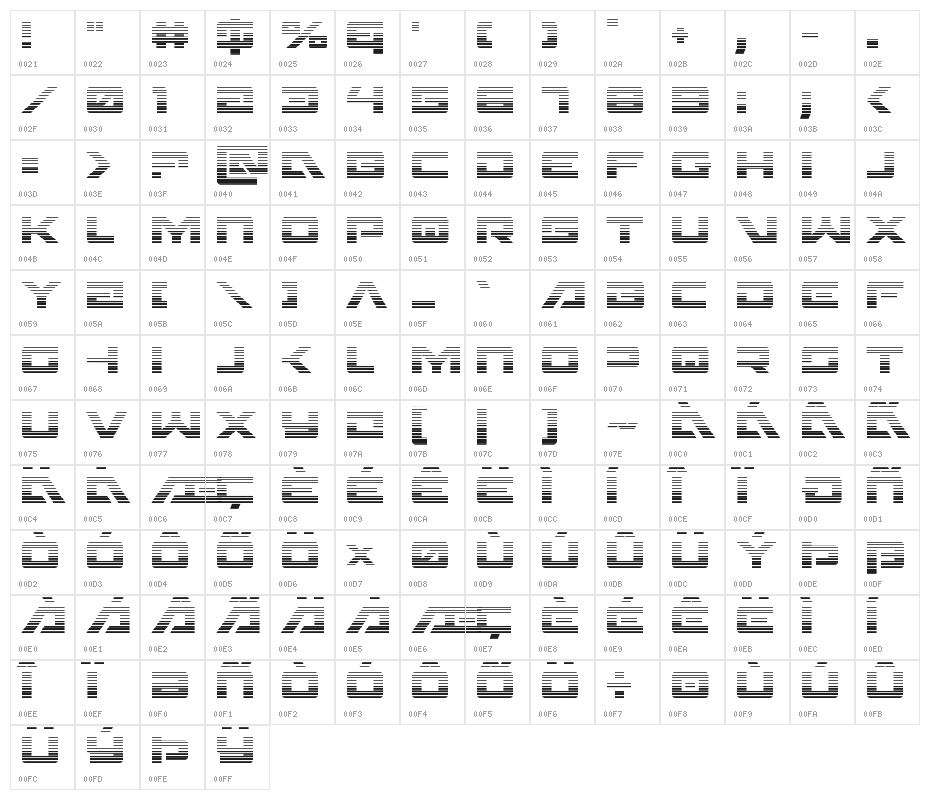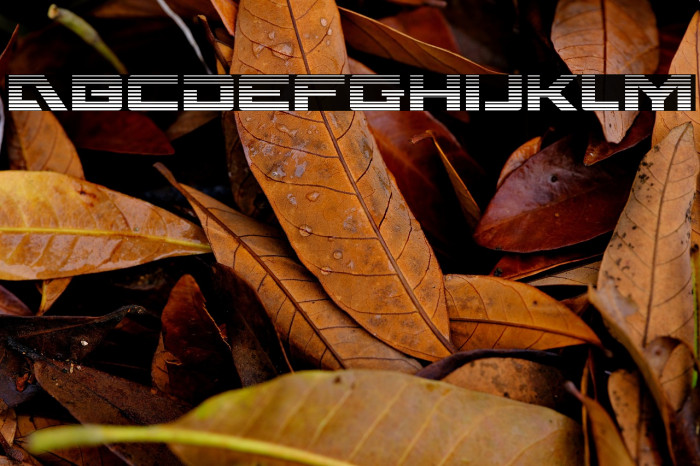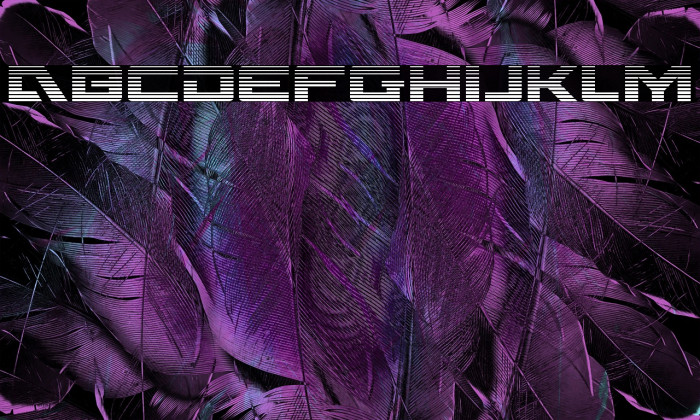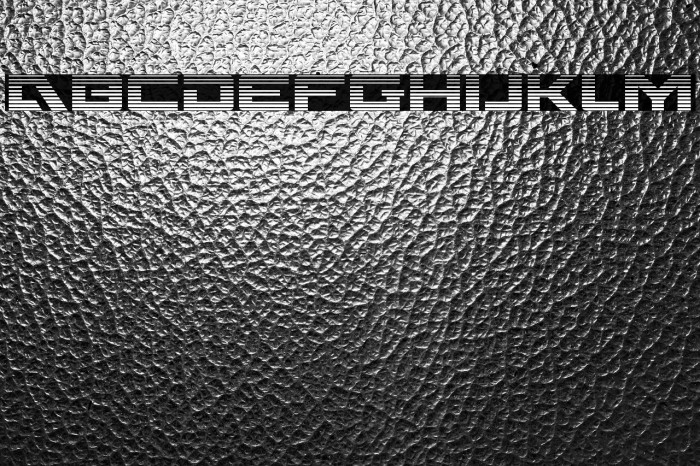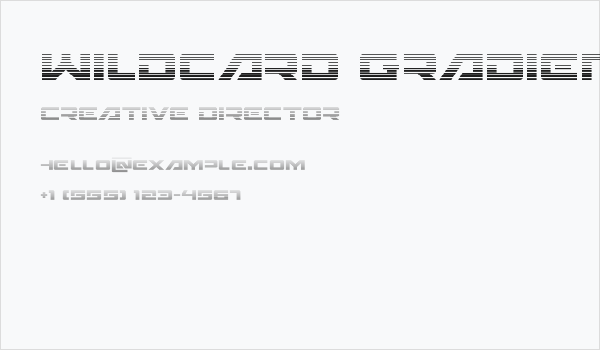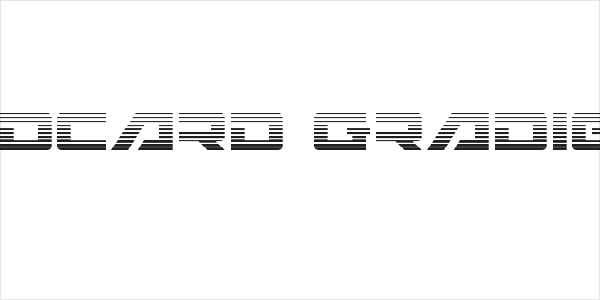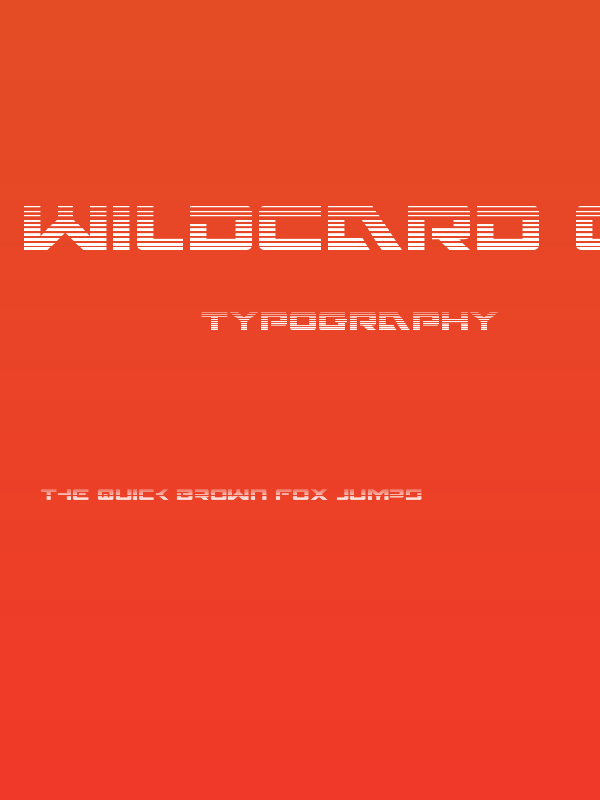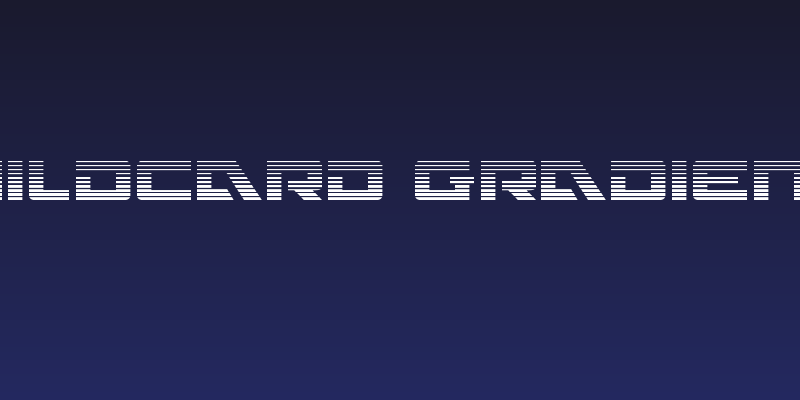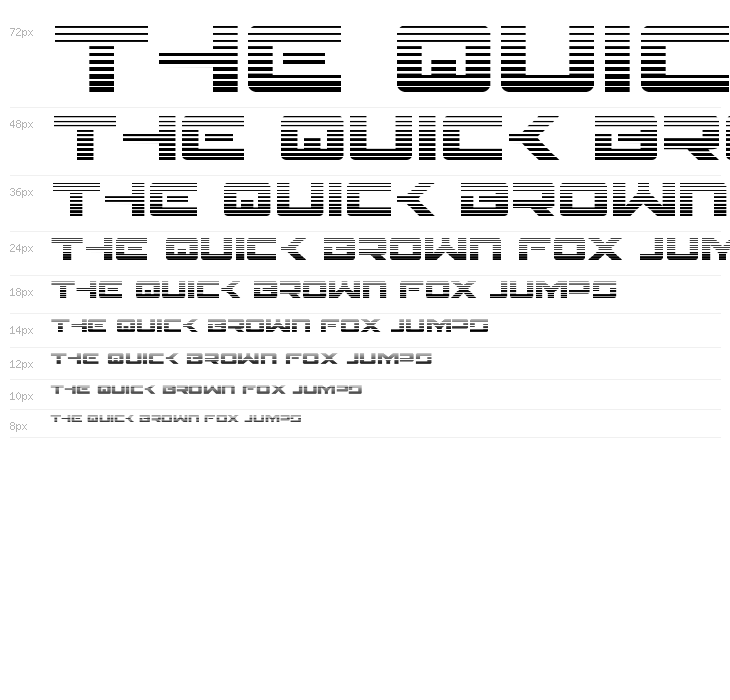
Wildcard Gradient Font
Wildcard Gradient Description
This font features a unique, futuristic design with a striped pattern running horizontally through each character. The geometric shapes and clean lines give it a modern and digital aesthetic, making it stand out with a distinct visual appeal. The uppercase and lowercase letters maintain a consistent style, while the numerals and special characters complement the overall design. The font's structure is bold and impactful, ideal for making a statement in any project.
Proposed ProjectsIdeal for technology-themed projects, digital art, video game graphics, and modern branding.